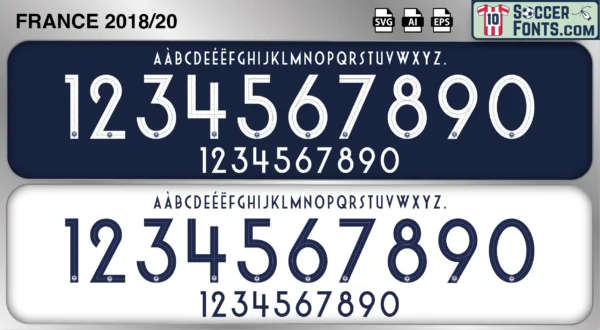
France 2018-20 Font
The France 2018-20 font is an editable soccer jersey lettering design in vector format inspired by the France kit style used during the 2018-20 football seasons. This football font artwork is prepared for football shirt recreations, custom jersey projects, football kit mockups and sports graphic design workflows.
The 2018-20 period followed France’s triumph at the 2018 FIFA World Cup in Russia, where the national team secured its second world title. Featuring stars such as Kylian Mbappé, Antoine Griezmann, Paul Pogba, N’Golo Kanté, Raphaël Varane and Hugo Lloris, France entered a new era as reigning world champions. The squad combined experienced leaders with some of the most exciting young talents in world football and remained one of the strongest national teams on the international stage. During this period, France continued competing in UEFA Nations League and qualification matches while preparing for UEFA EURO 2020.
The France 2018-20 font became associated with the immediate aftermath of World Cup success and one of the deepest squads in modern football. France shirts from this era remain highly collectible because of their connection with Mbappé’s rise to superstardom and the championship-winning generation that brought the World Cup back to France. The France 2018-20 font reflects a period of confidence, success and global recognition, capturing a national team operating at the peak of international football and carrying the expectations that come with being world champions.